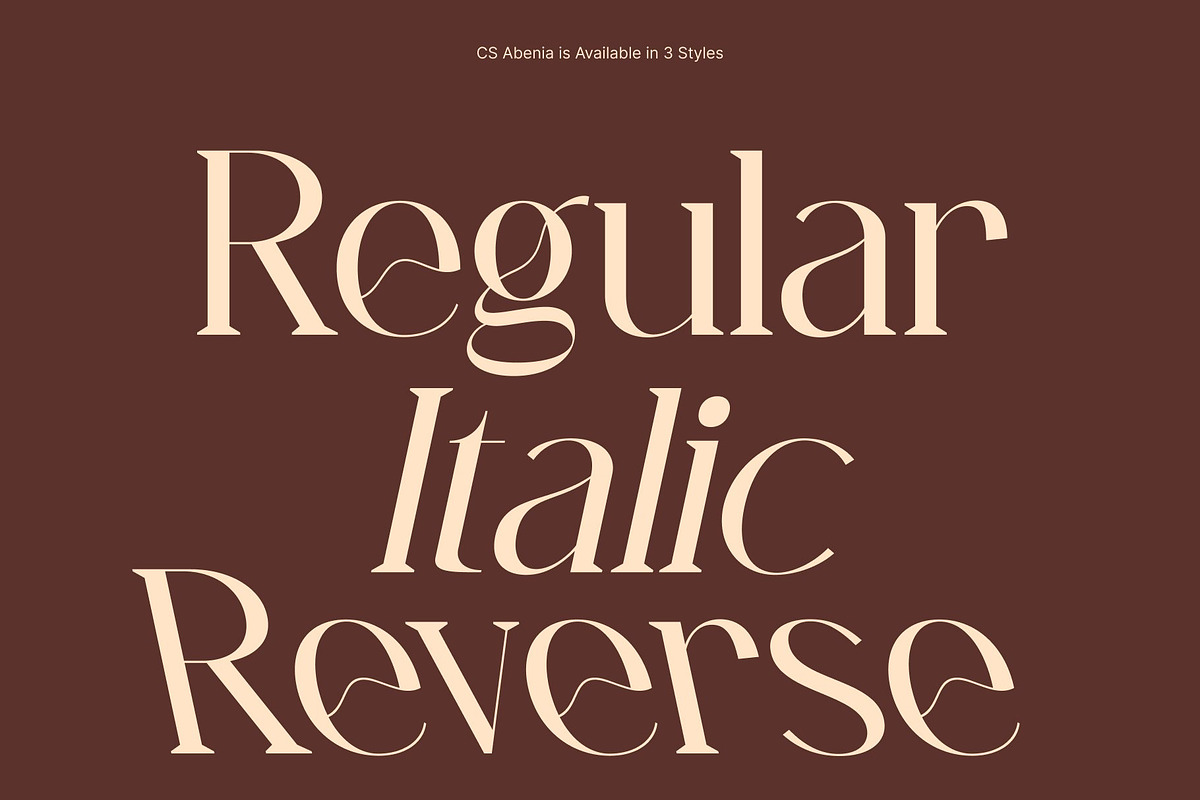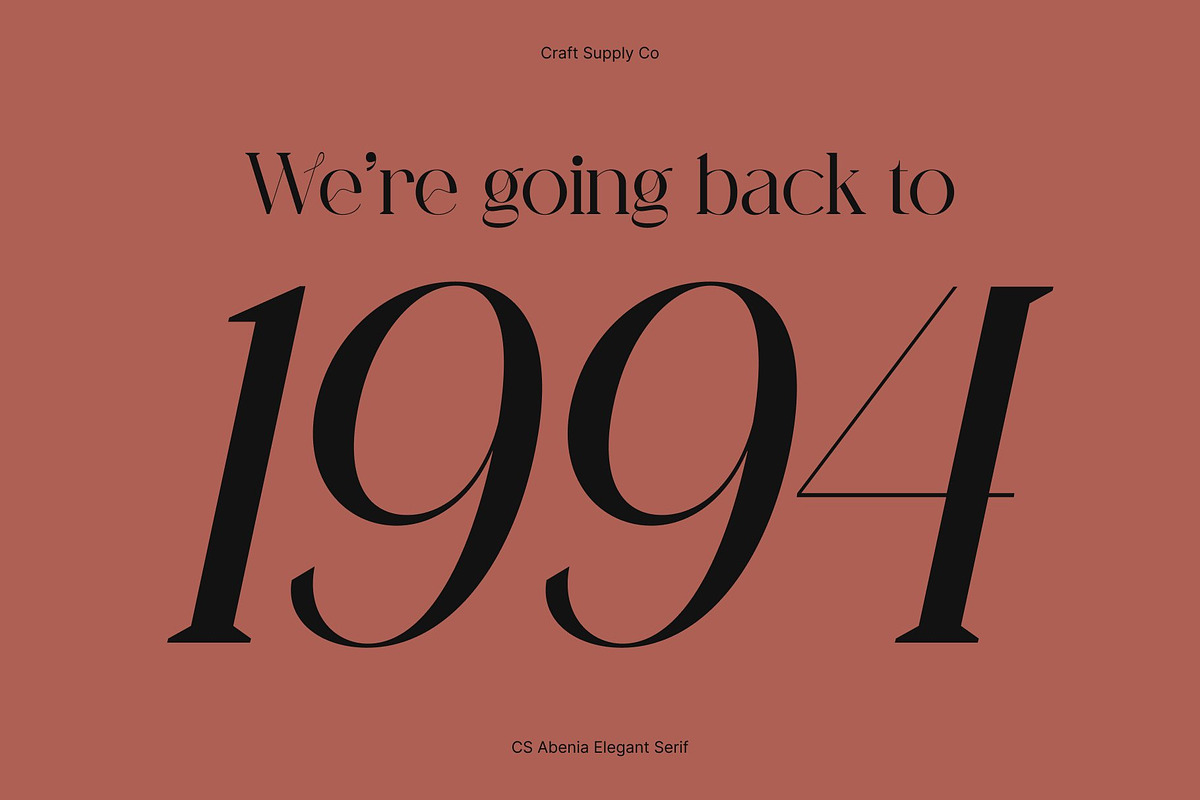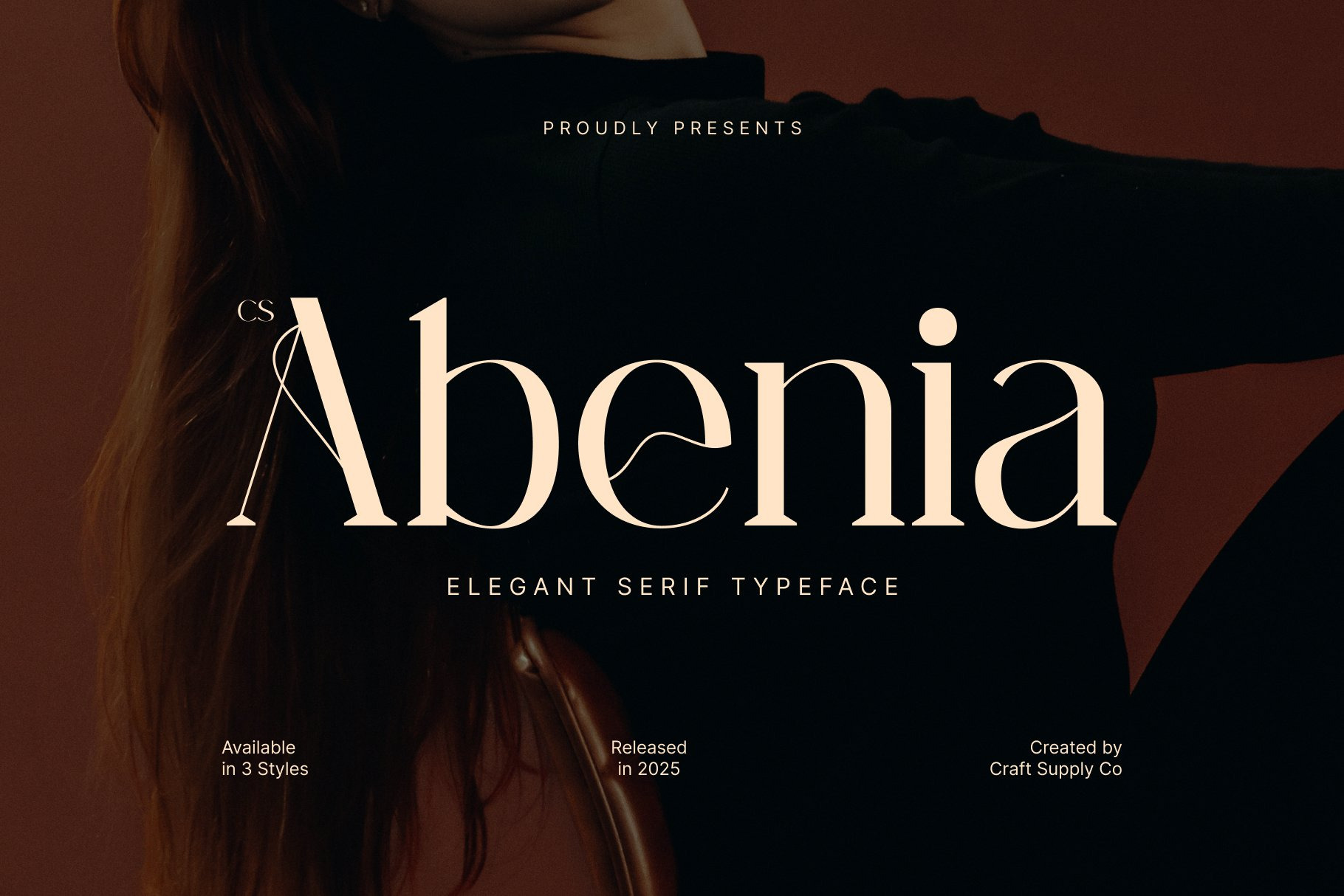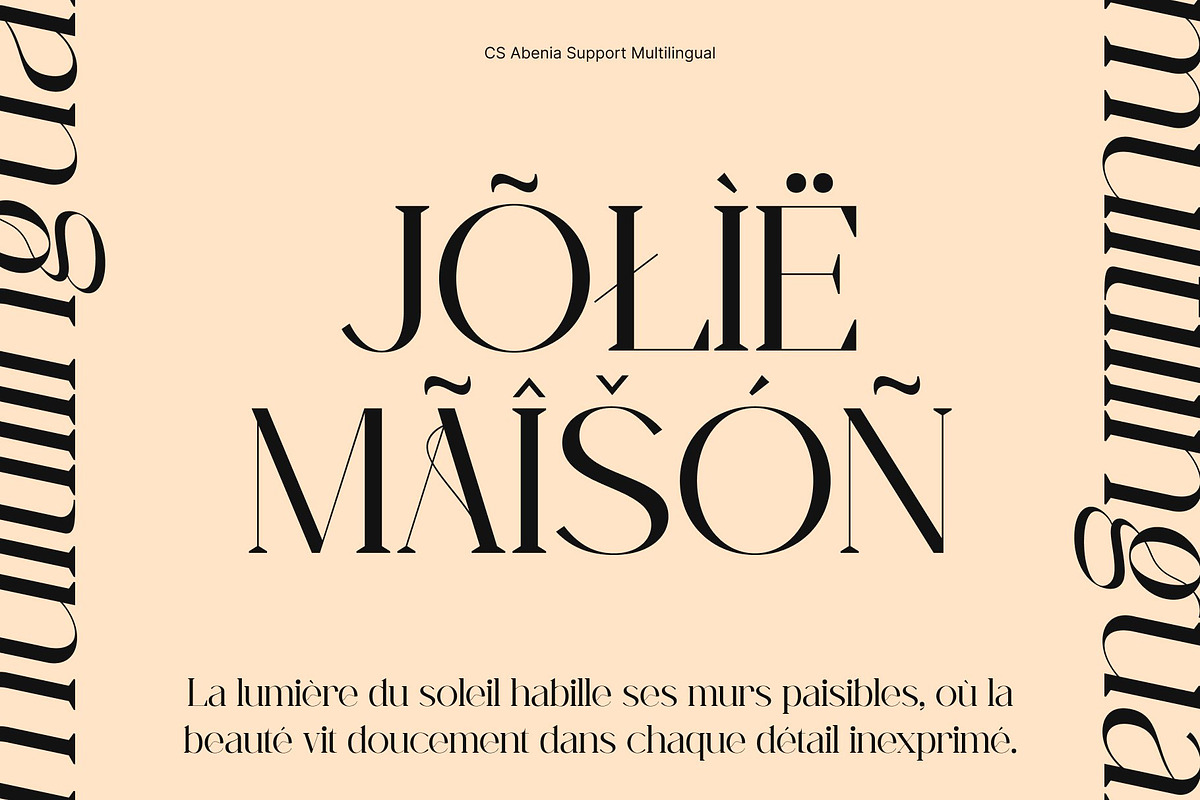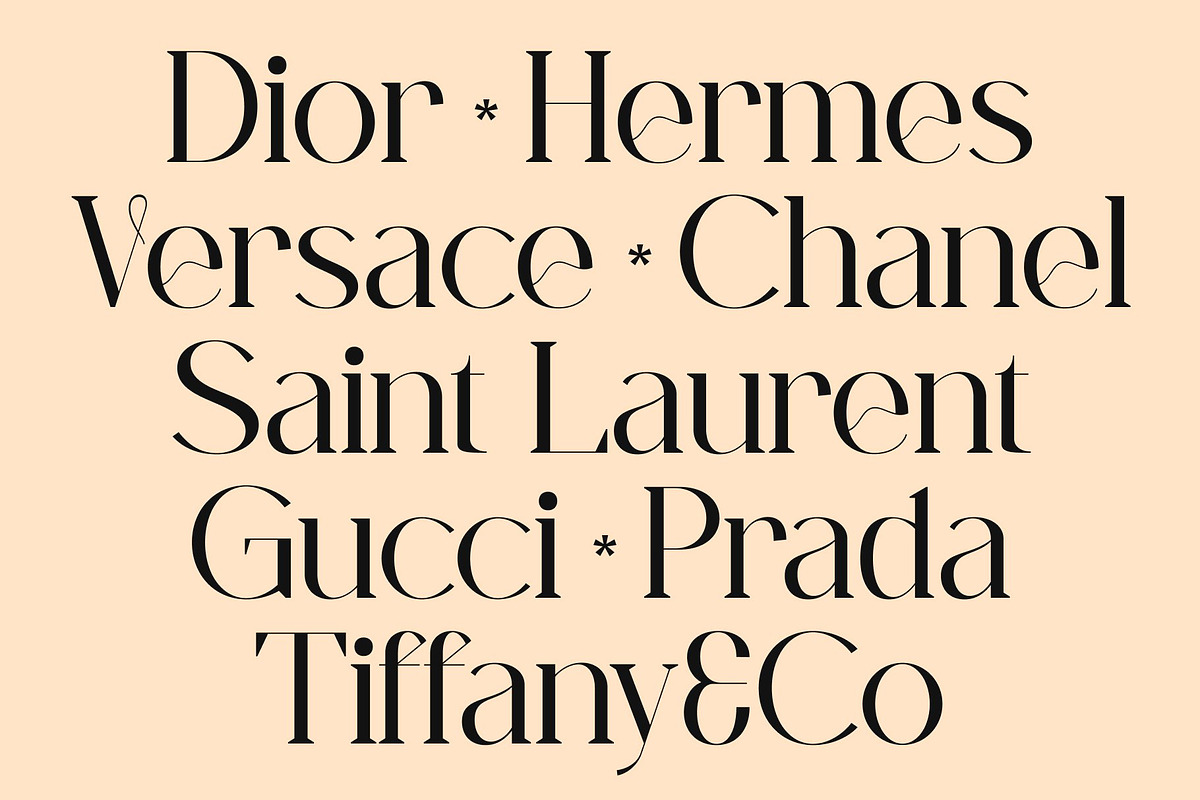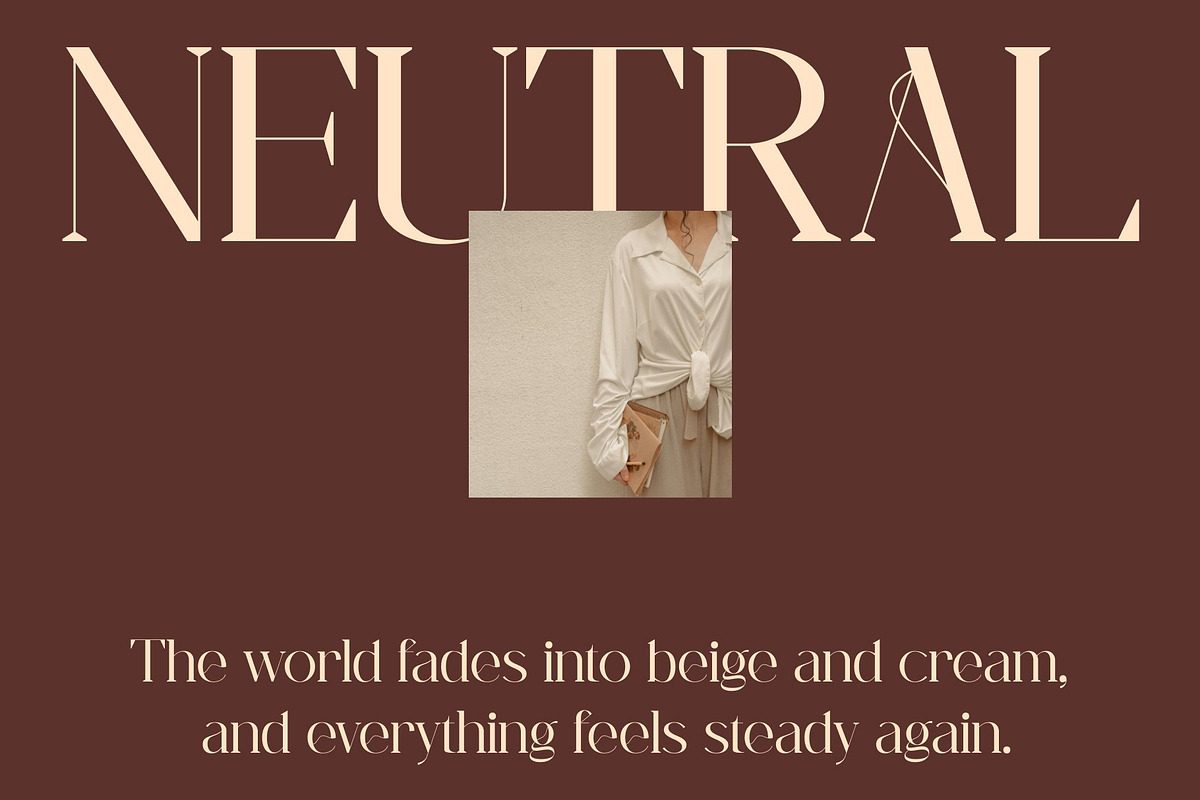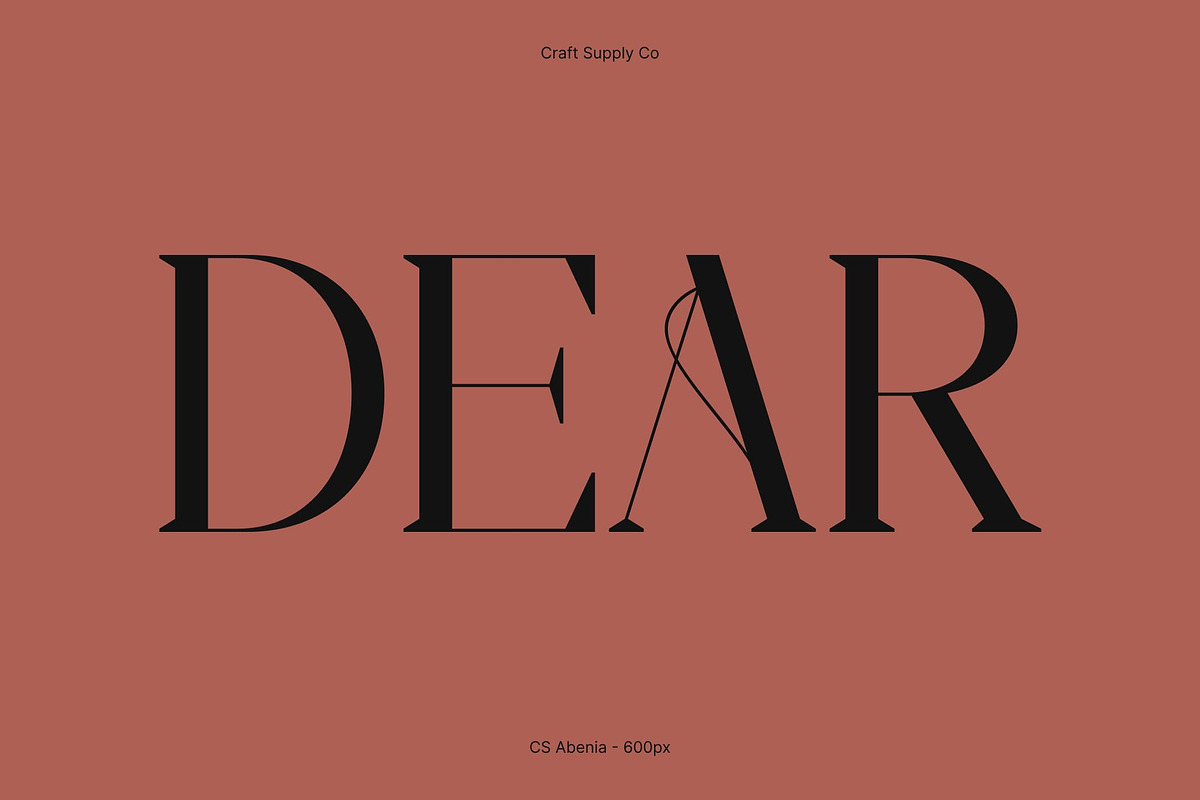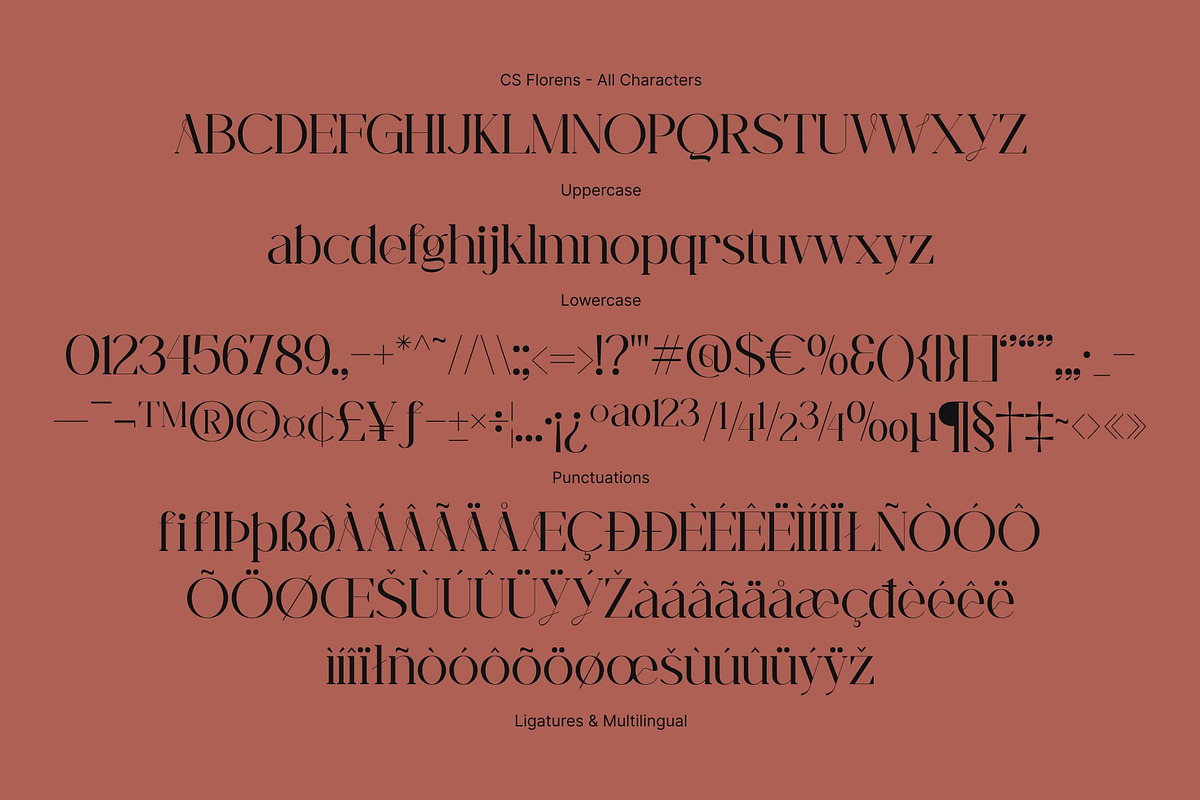
CS Abenia – Elegant Serif Font
CS Abenia – Elegant Serif Typeface with Refined Sophistication
Refined Letterforms with Timeless Elegance This is an elegant serif typeface crafted to embody sophistication, balance, and refined aesthetics. Its well-proportioned letterforms and graceful serif details create a polished appearance that feels timeless yet relevant. Every character is designed with precision, delivering a smooth visual rhythm that communicates confidence, class, and high-end appeal. This typeface elevates typography into a statement of taste and quality.
Stylish Structure with a Contemporary Edge While rooted in classic serif tradition, this font a modern sensibility through clean construction and subtle contemporary nuances. The result is a typeface that feels stylish and fresh without losing its elegant foundation. This balance makes it highly versatile, allowing it to move seamlessly between traditional luxury and modern creative expression.
Designed for Premium Visual Communication This font excels in branding, fashion campaigns, editorials, and creative layouts where visual refinement is essential. Its elegant presence enhances logos, headlines, packaging, and promotional materials, helping brands communicate exclusivity and sophistication. The font performs beautifully in both print and digital environments, maintaining clarity while projecting a premium feel.
Perfect for Fashion, Branding, and Creative Projects Whether used for high-end branding, lifestyle visuals, or artistic editorial design, delivers a graceful and confident typographic voice. It is ideal for designers seeking a serif typeface that feels luxurious, stylish, and expressive one that transforms content into a refined visual experience with lasting impact.